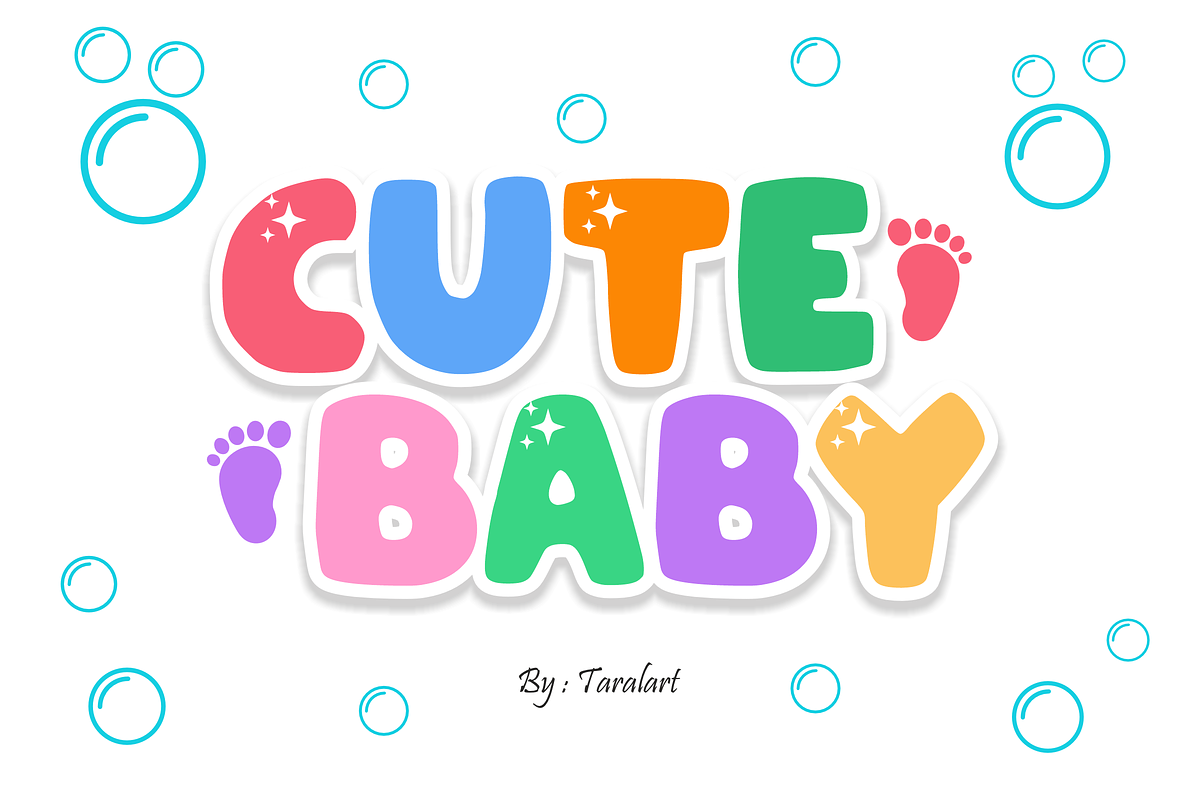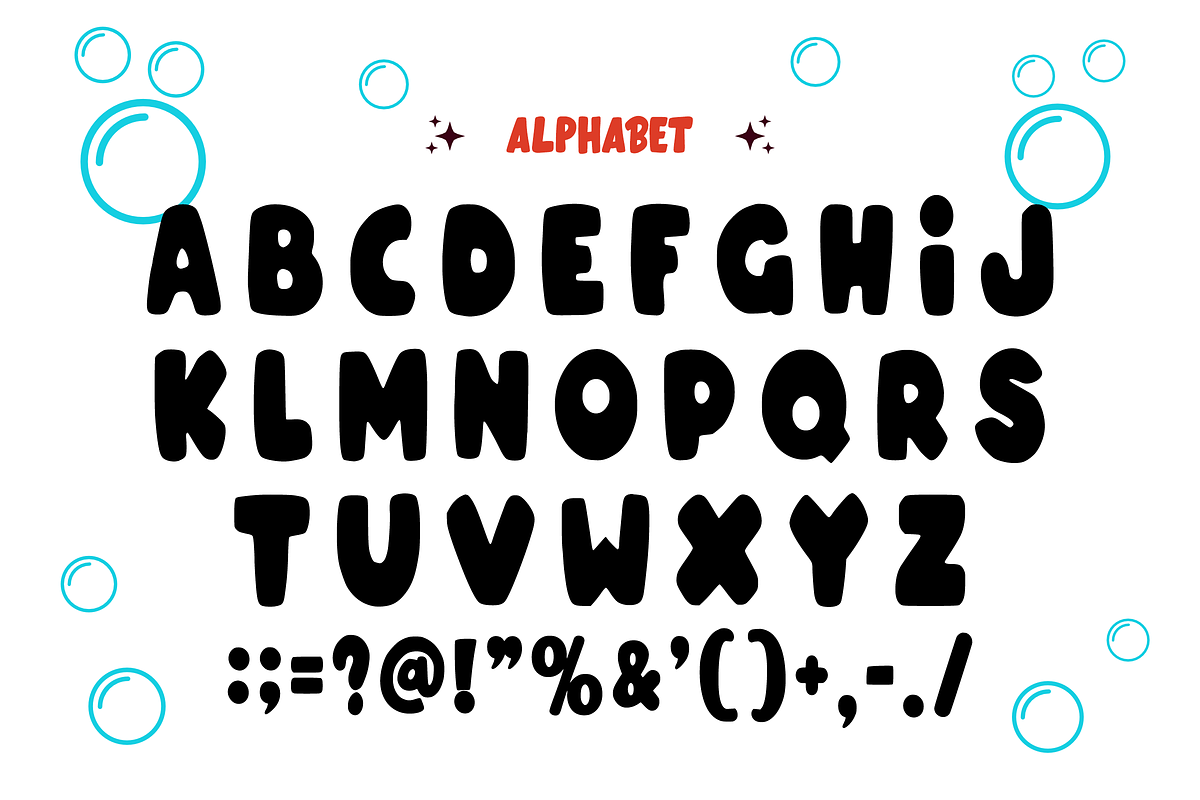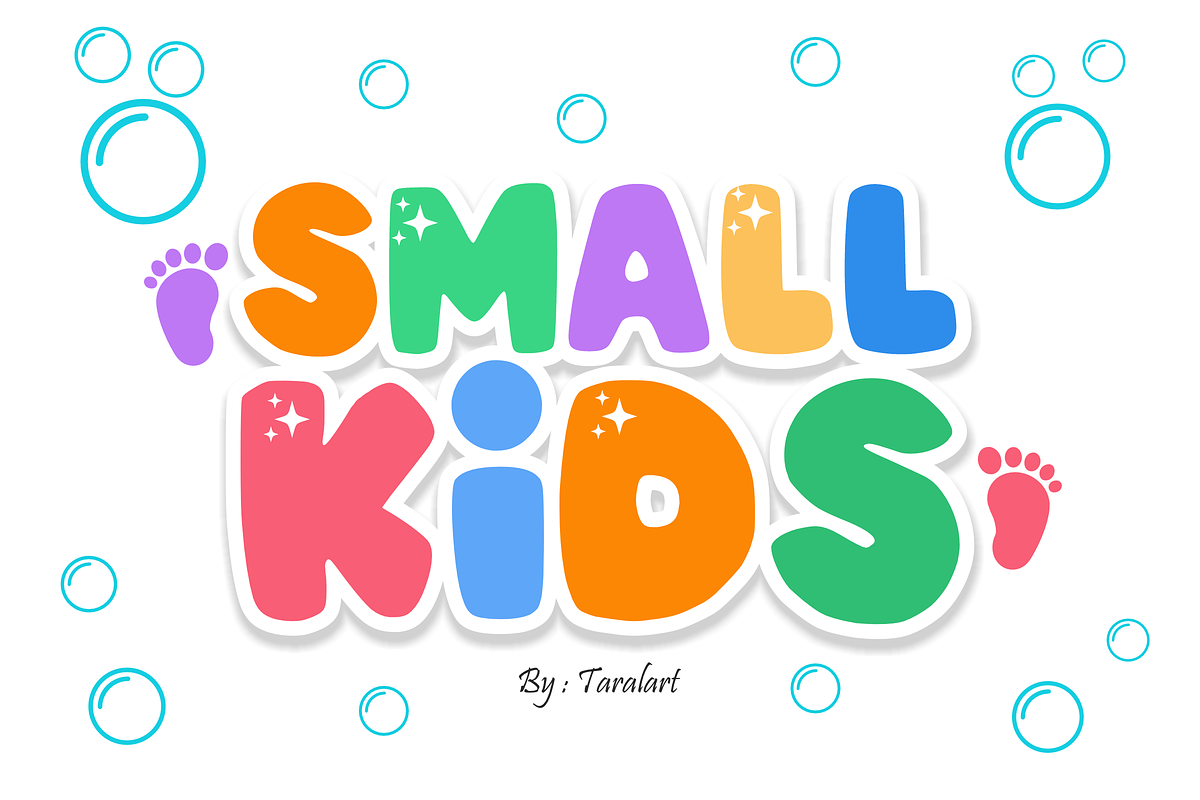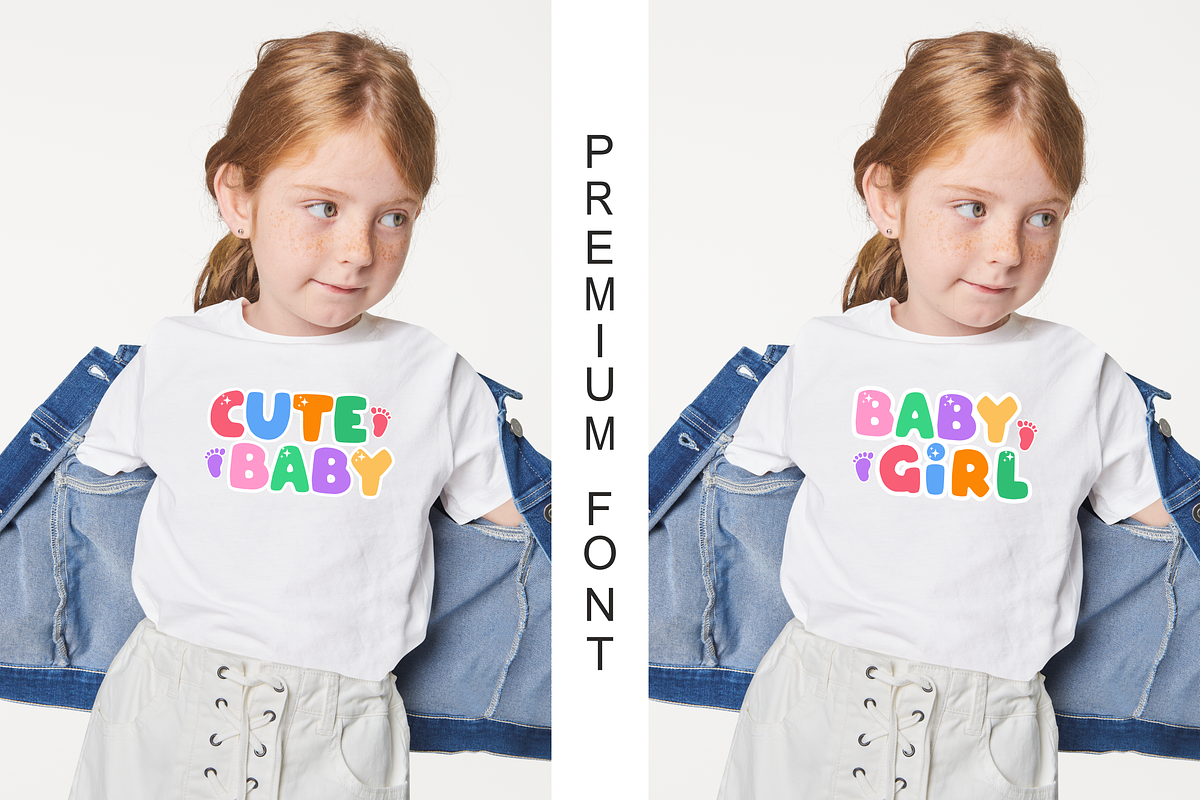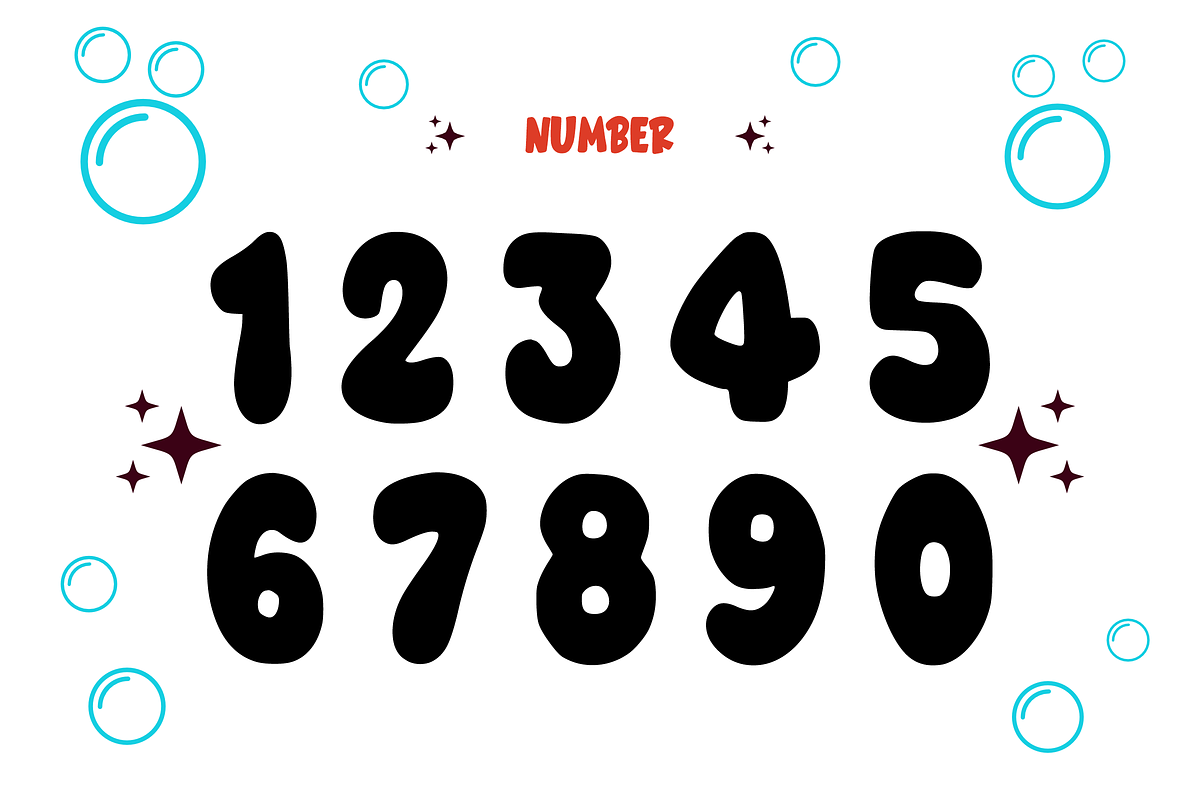
Small Kids - Playful Kids Font
Bring a burst of pure joy to your designs with Small Kids! This ultra-chunky, bubbly display font features soft rounded shapes and whimsical little sparkle details built right into the letters. It’s the ultimate choice for making children’s crafts, nursery decor, and school projects look incredibly fun, sweet, and welcoming.
Perfect for baby branding, teacher resources, and trend-focused crafting, Small Kids wonderfully combines a playful cartoon aesthetic with outstanding legibility. It is highly versatile, exceptionally smooth for cutting machines, and fully optimized for flawless performance across premium digital software and professional print setups.
All-Caps Character Set (Chunky, bubbly uppercase letters with cute sparkle details)
Numbers & Basic Punctuation (Essential, simple symbols included)
Children's Book Covers, Kindergarten Logos, & School Posters 📚
Teacher Resources, Classroom Decor, & Educational Activity Sheets ✏️
Baby Shower Invitations, Nursery Wall Art, & Birthday Banners 🍼
Custom Die-Cut Stickers, Toddler Apparel Prints, & Cute Merch 👕
High-Impact YouTube Thumbnails, Toy Packaging, & Social Media Graphics ✨